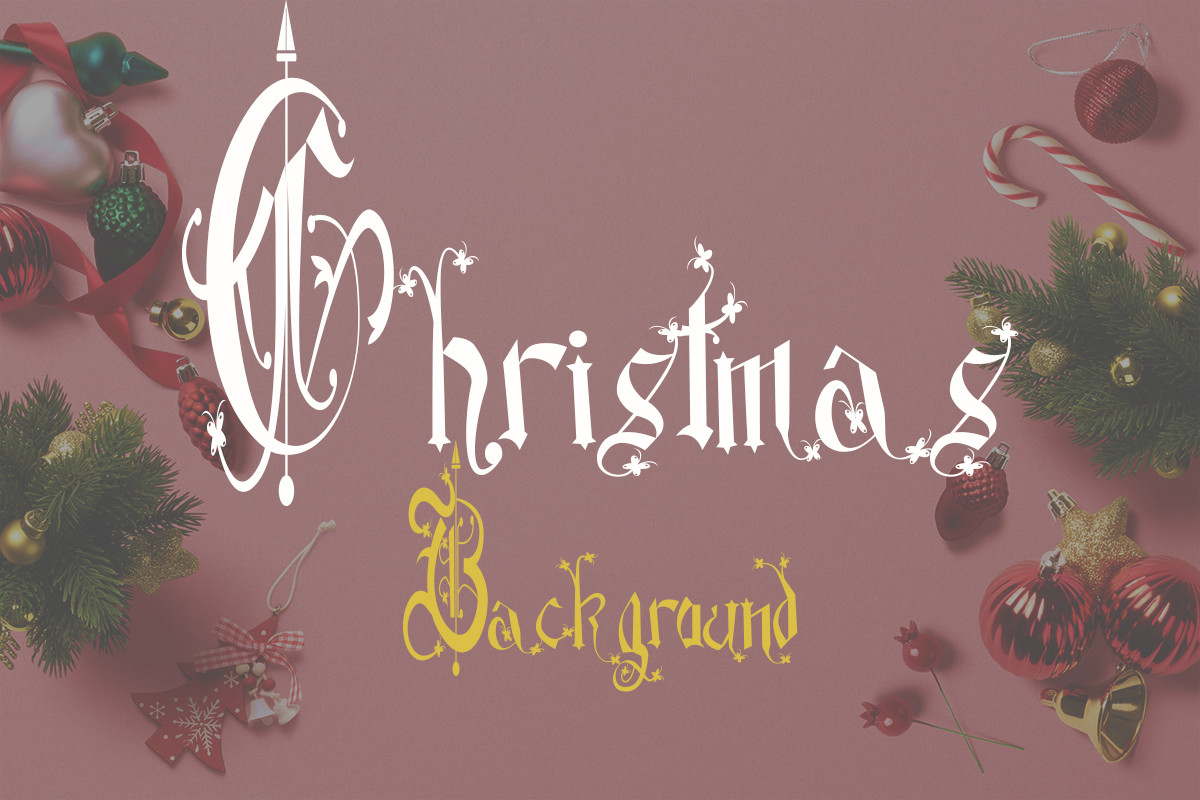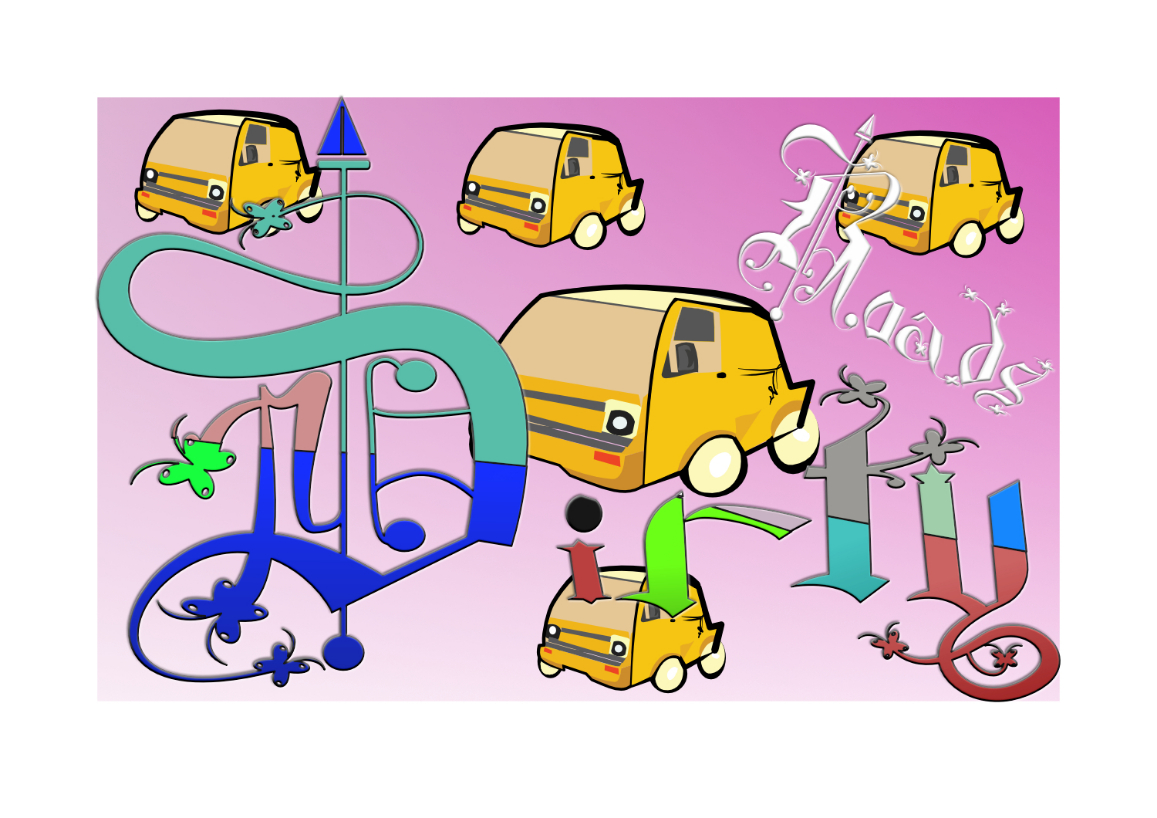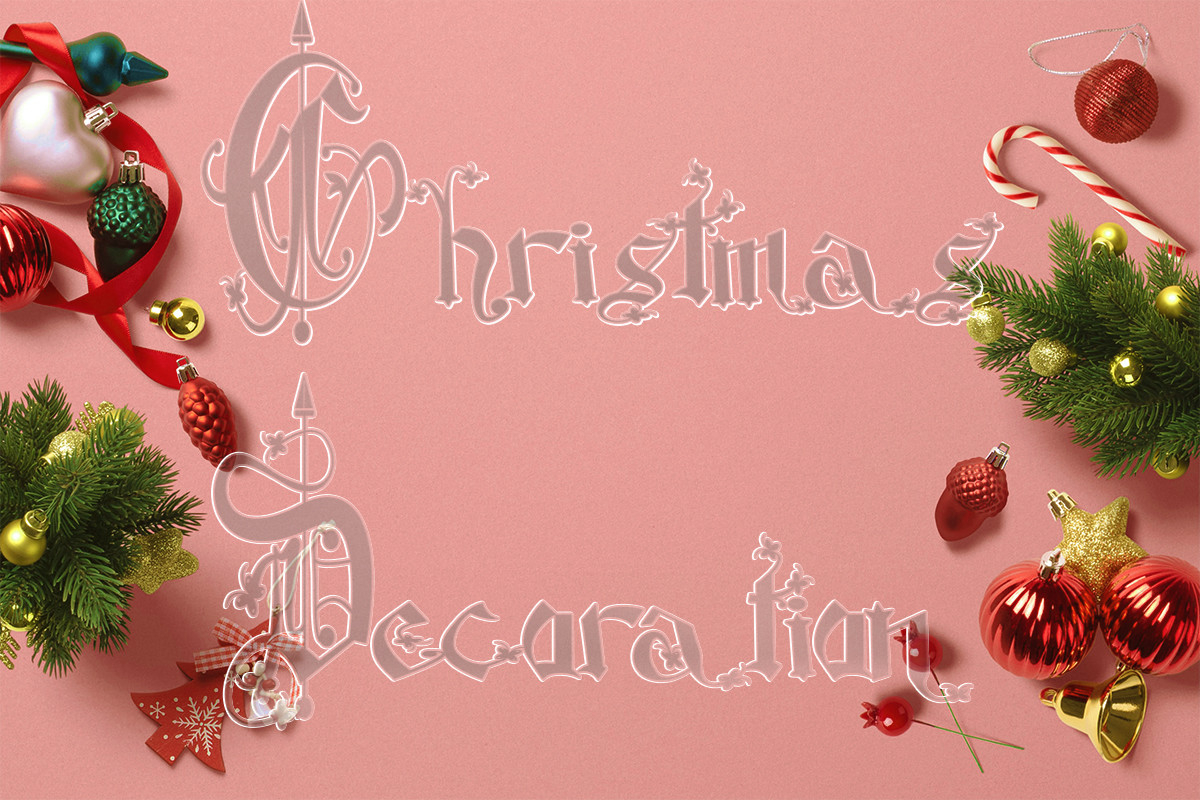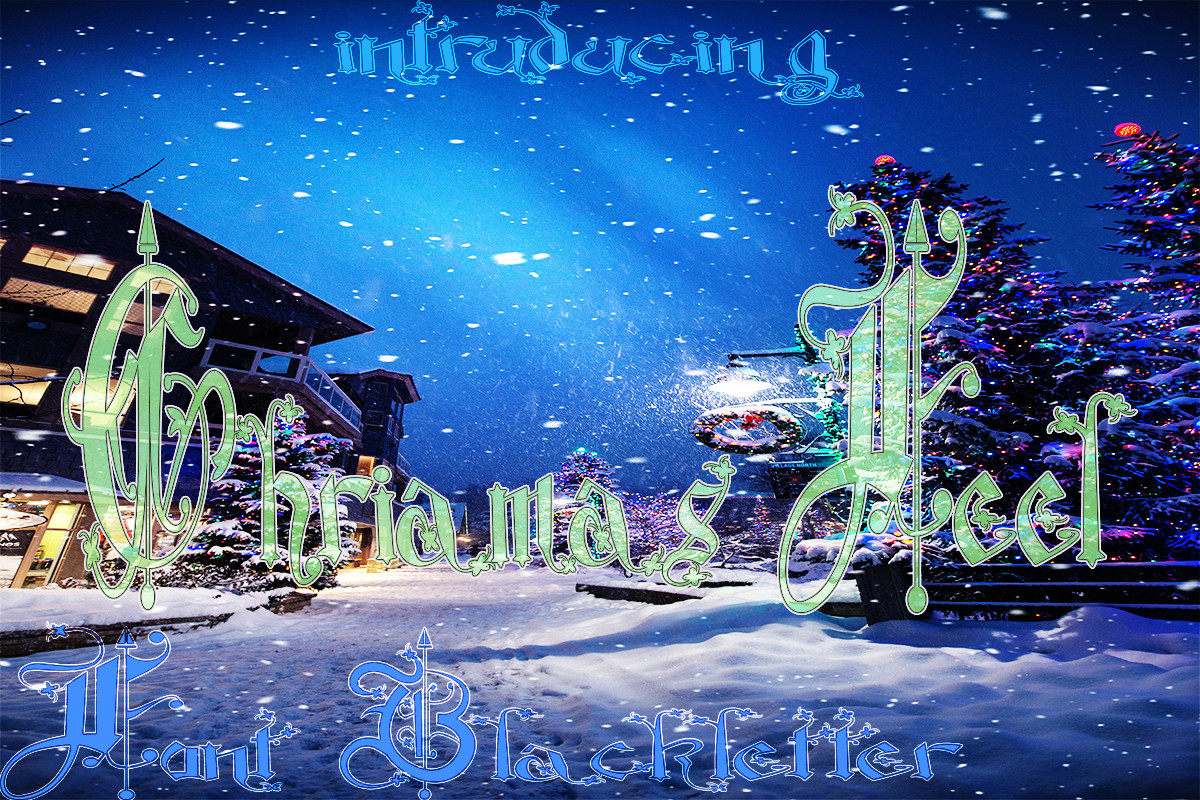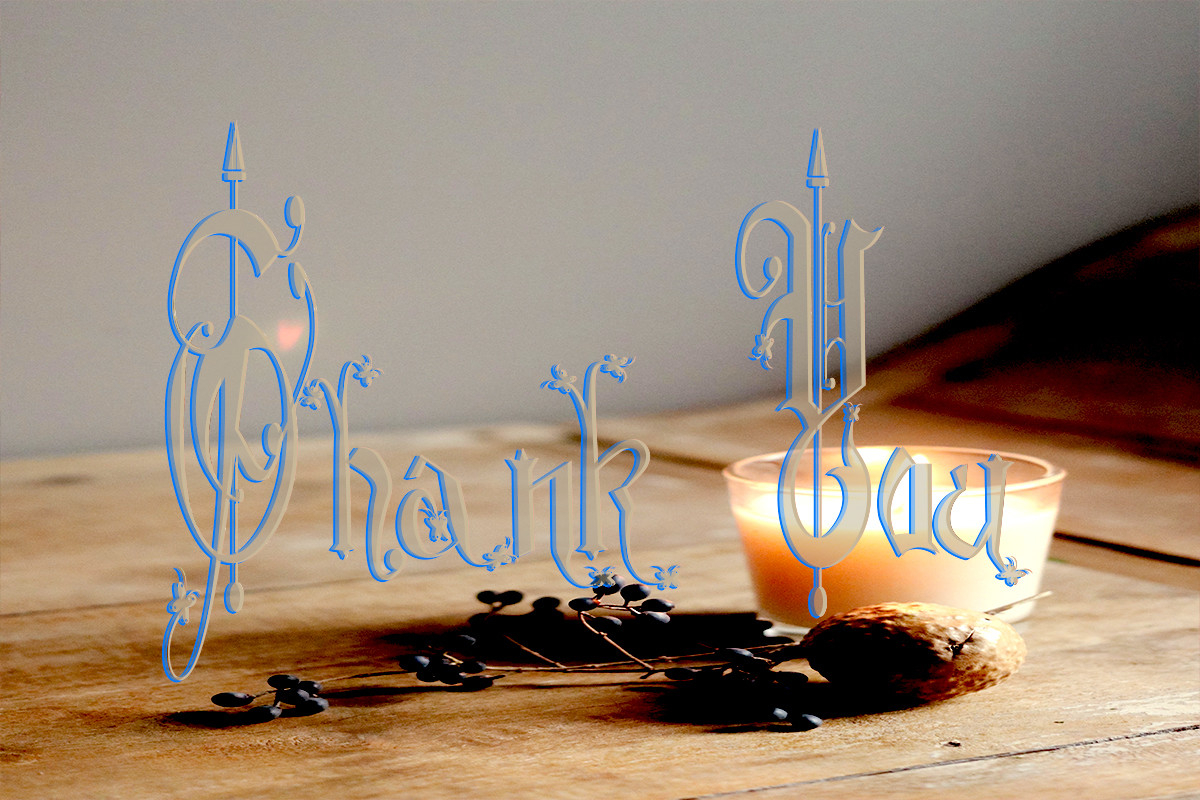
Christmas Background Font
About Christmas Background Font
Christmas Background is a unique blackletter font. The latest style letters are perfect for wall displays, wedding invitations, social media post logos, advertisements, product packaging, product designs, labels, photography, watermarks, invitations, stationery, and any project that requires a taste for handwriting.